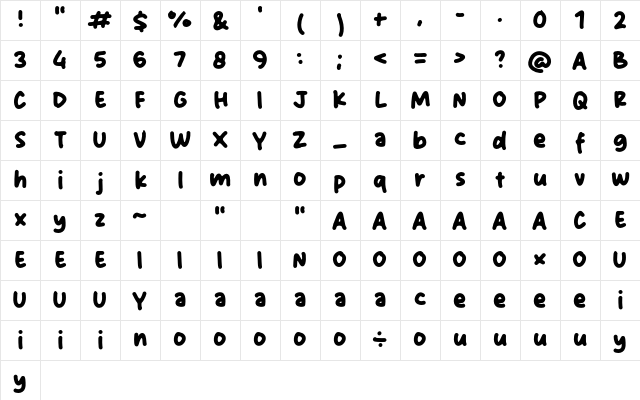
Holiday Mama Regular Free Font
Holiday Mama Regular
Designer: MJType (Muhamad Junaid) www.mjtype.com
Design Context for Holiday Mama
Holiday Mama is a composed and adaptable typeface that performs quietly and consistently across a wide range of design contexts.